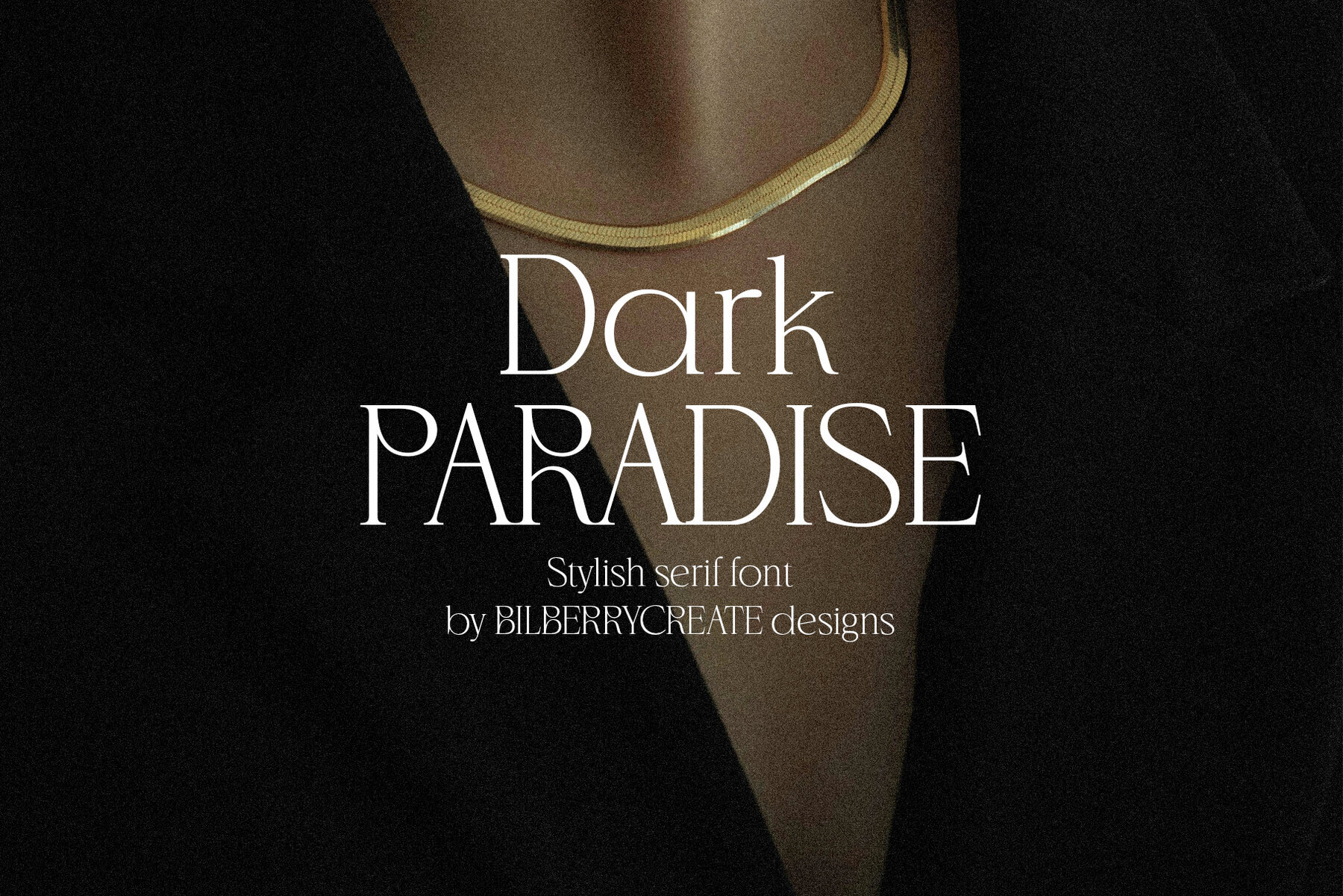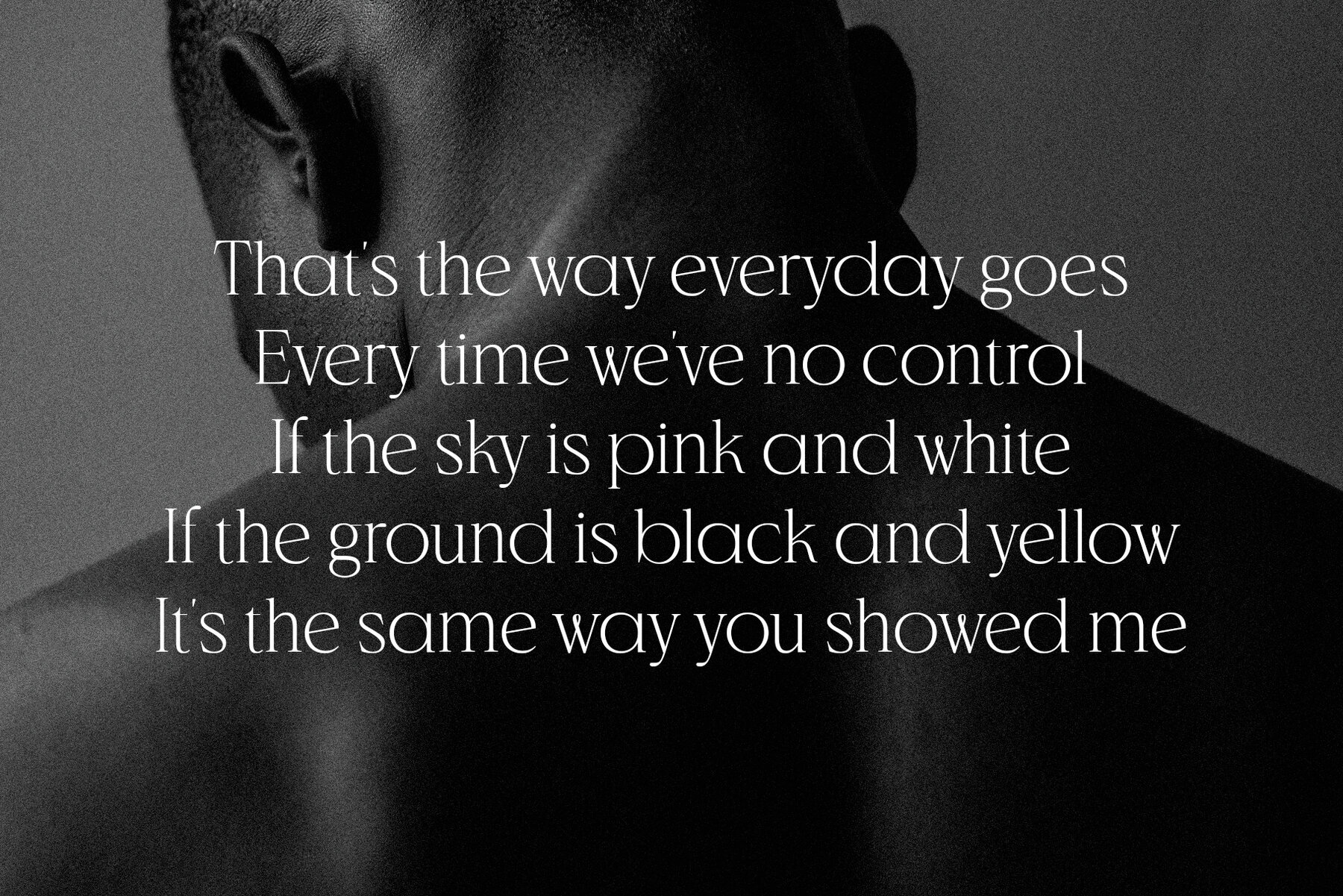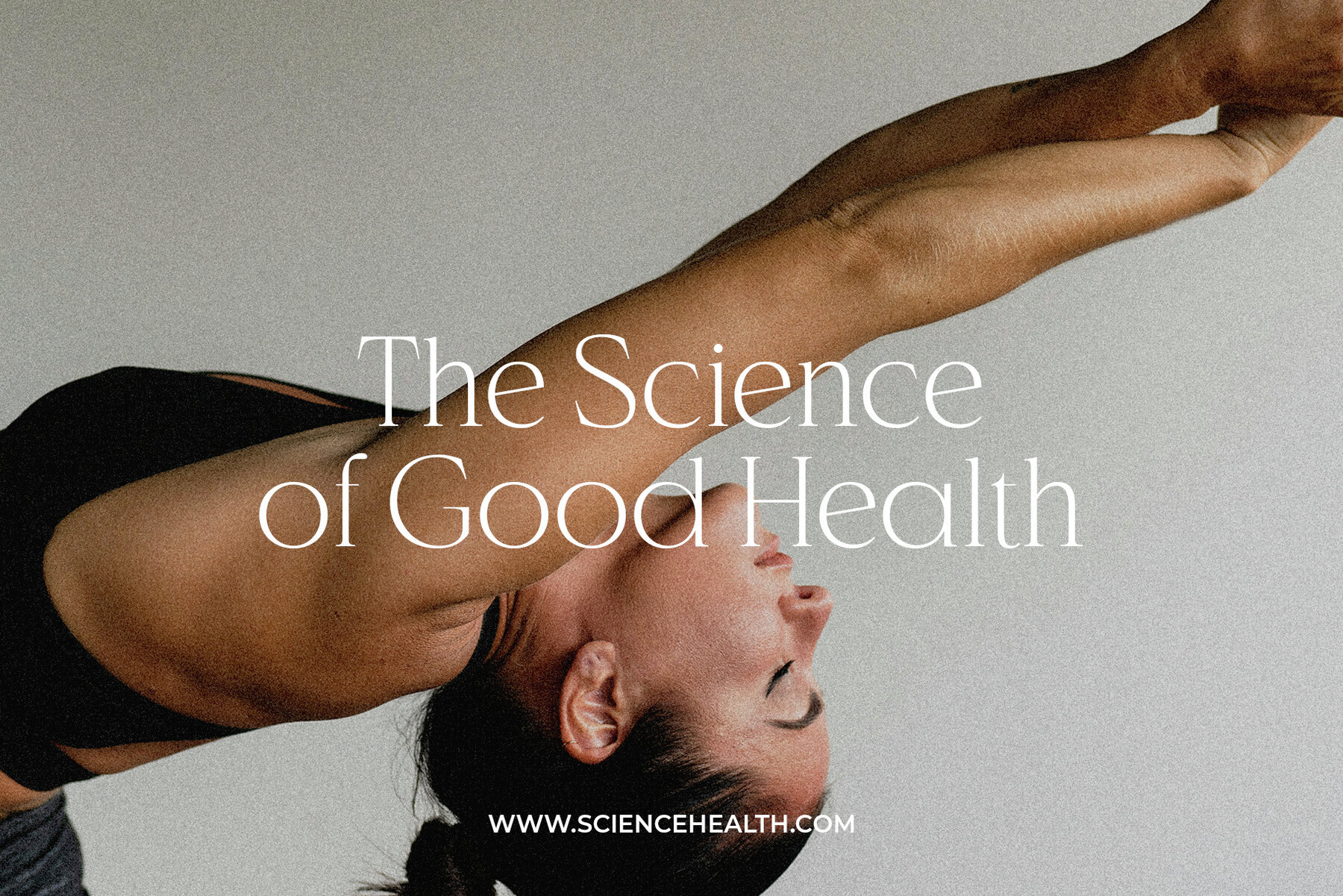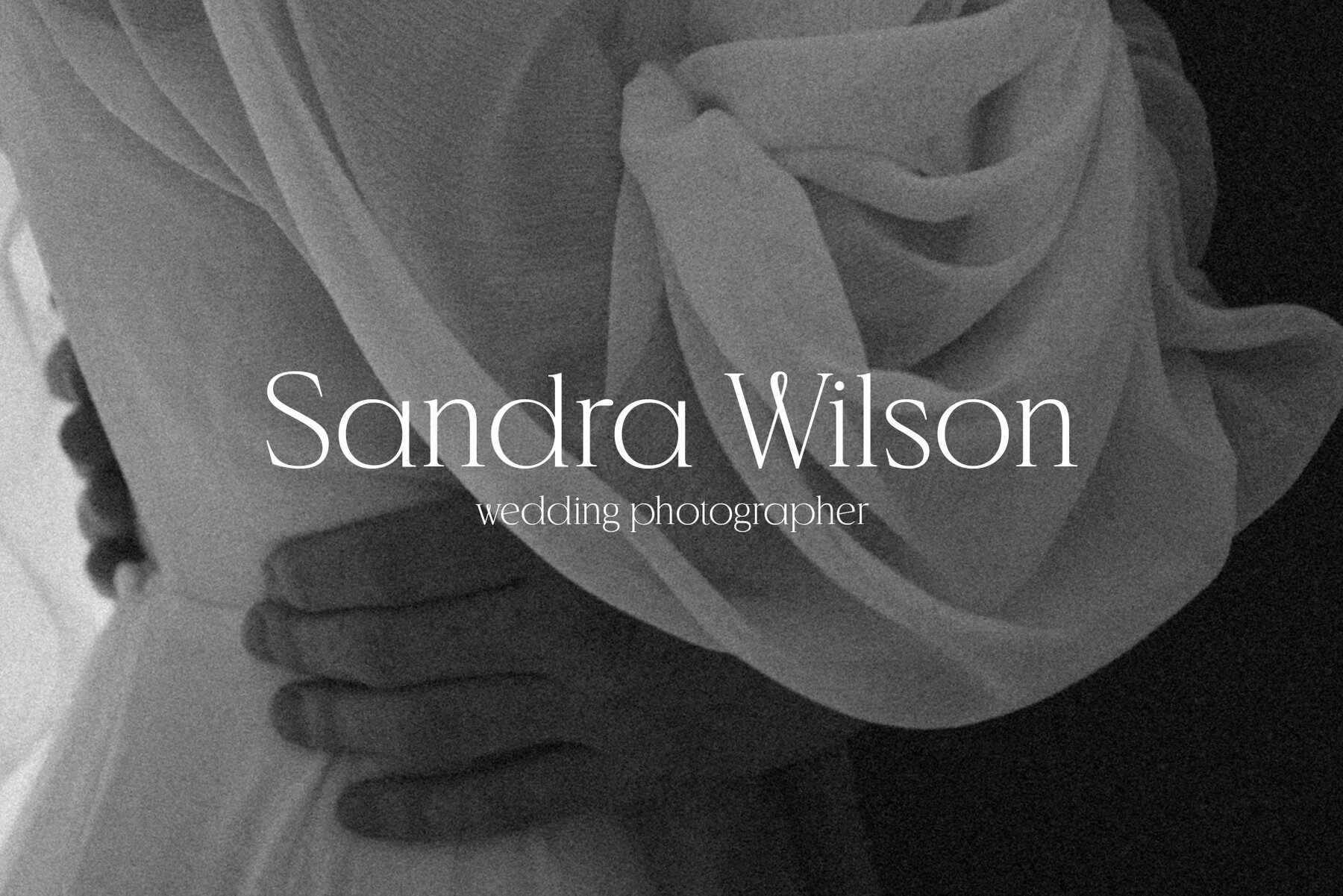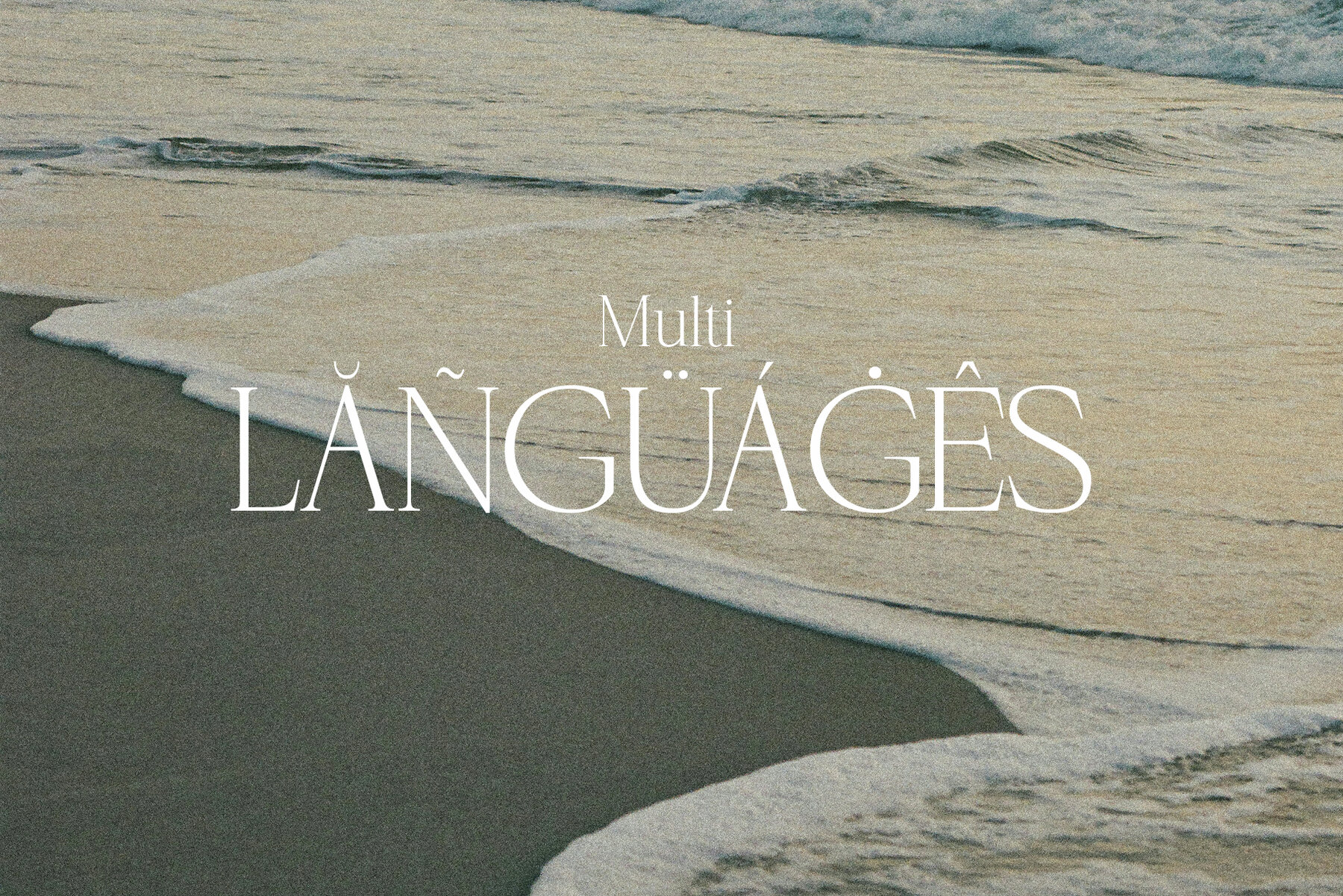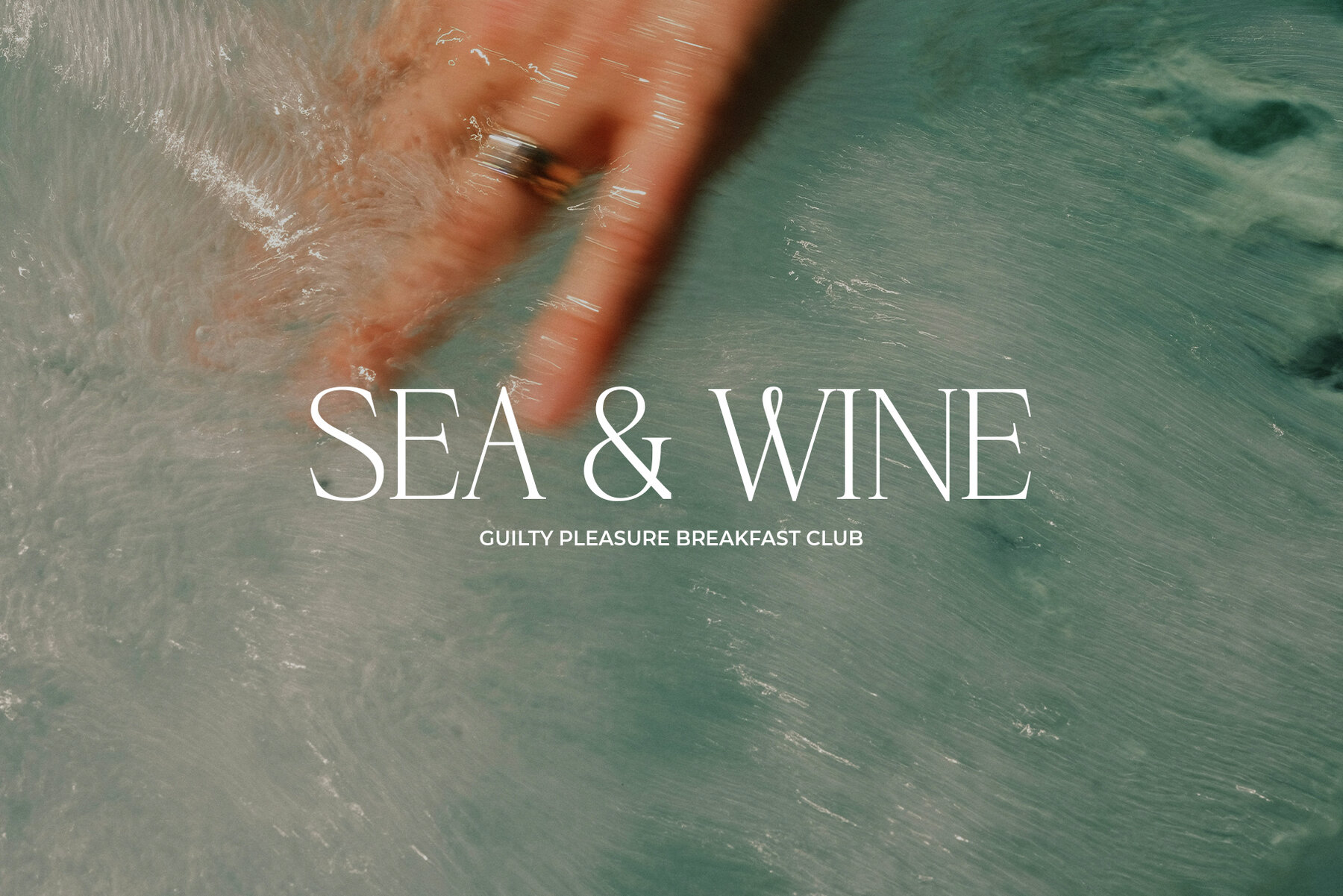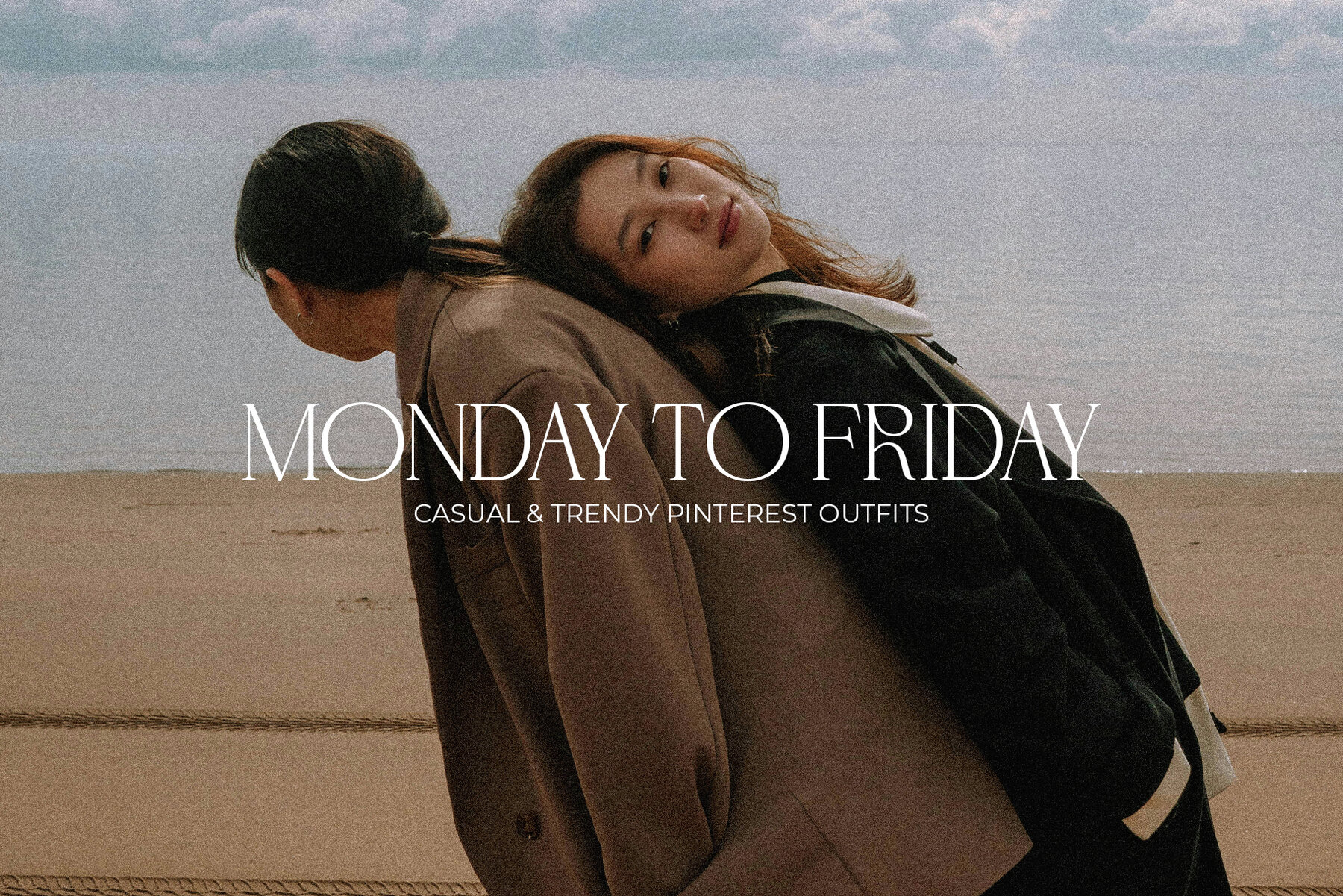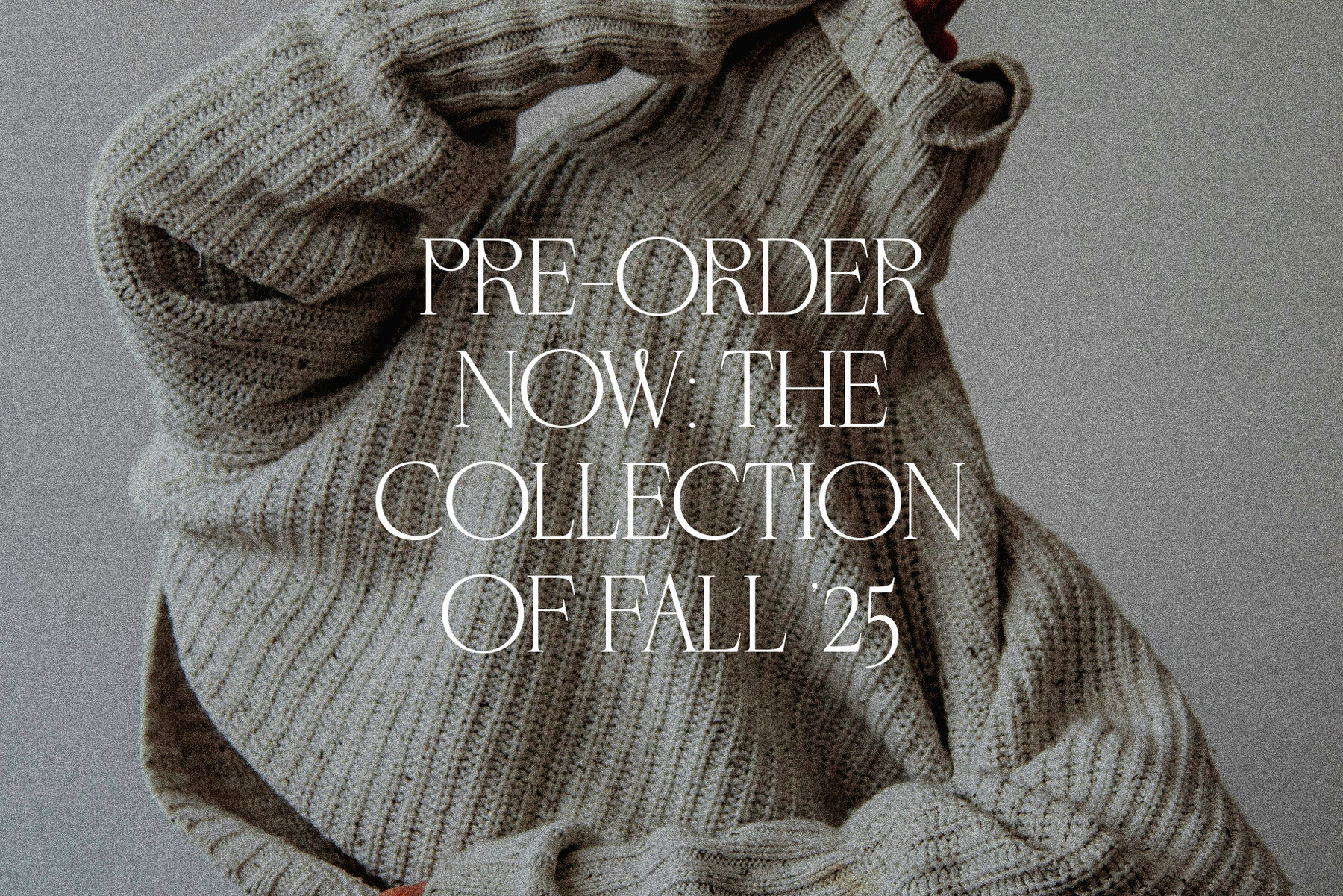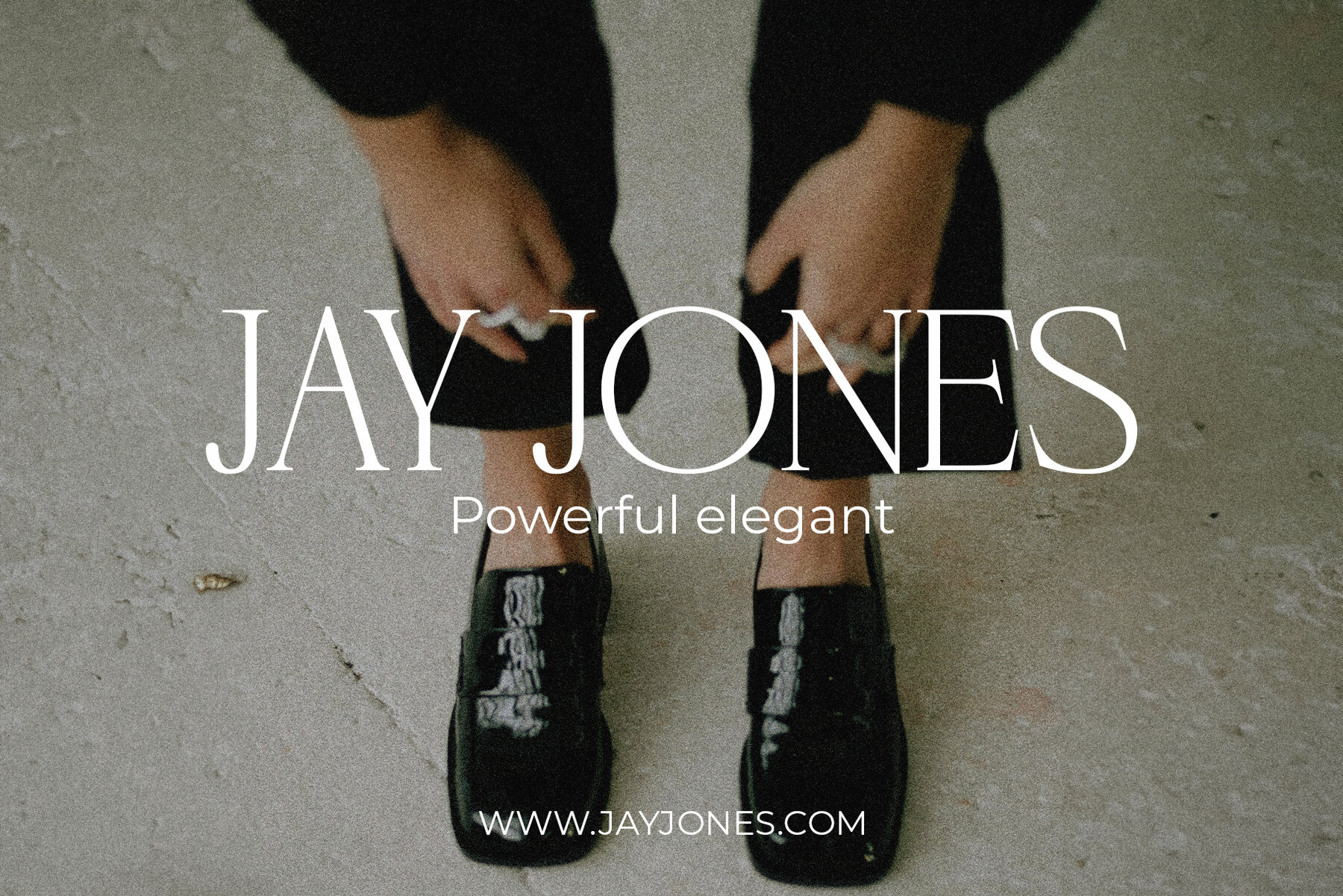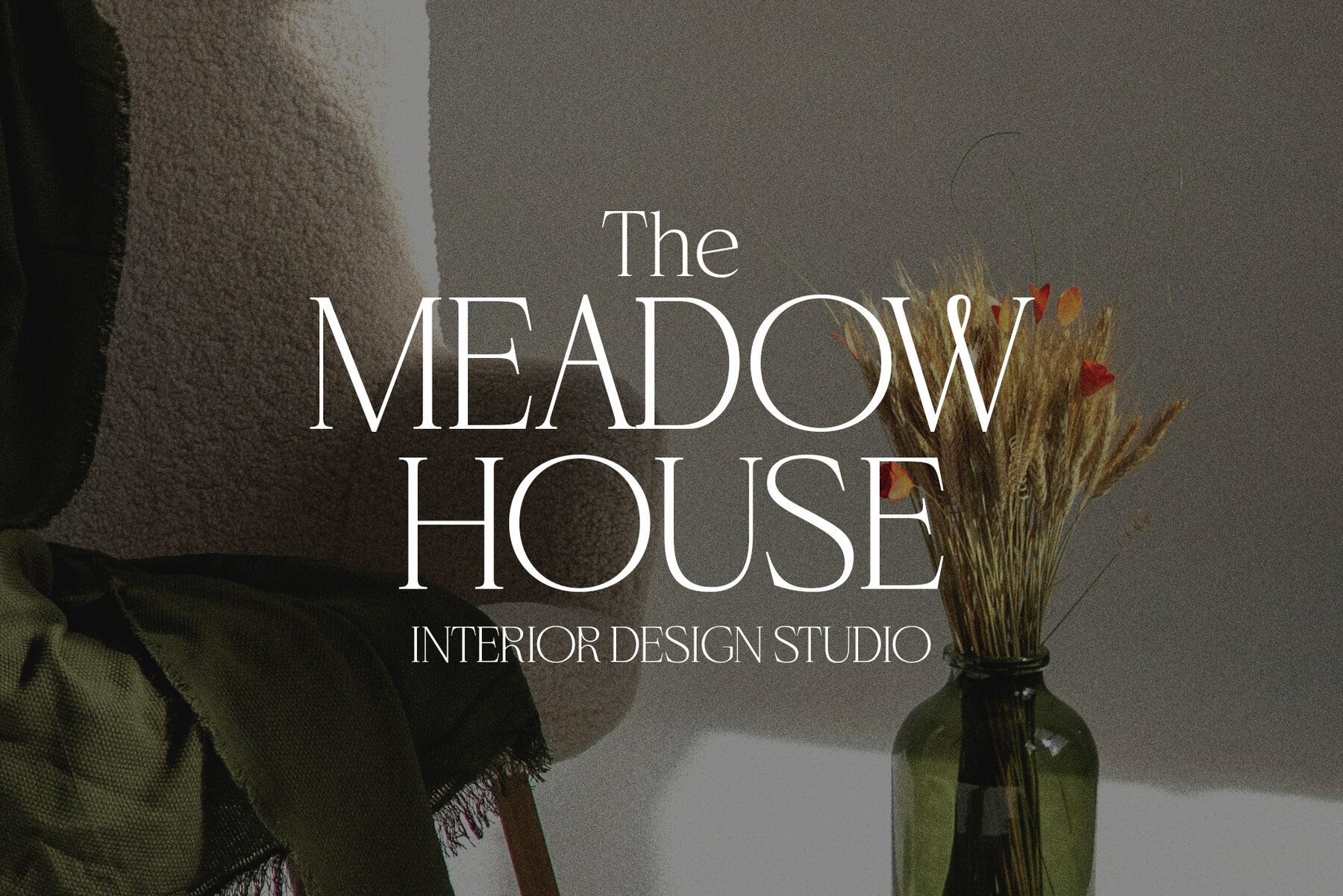
Dark Paradise Font
Dark Paradise Regular
Dark Paradise offers a unique and stylish serif font, perfect for infusing elegance into your projects. This font is designed to enhance the beauty and uniqueness of your digital images effortlessly. Whether you're creating logos, invitation cards, or scrapbooking, Dark Paradise provides a touch of refinement. It is also ideal for wedding and birthday cards, home decor, packaging holiday gifts, party decorations, and fabric printing.Dark Paradise: A Stylish Serif Font by Bilberry Create Foundry
Versatile Usage